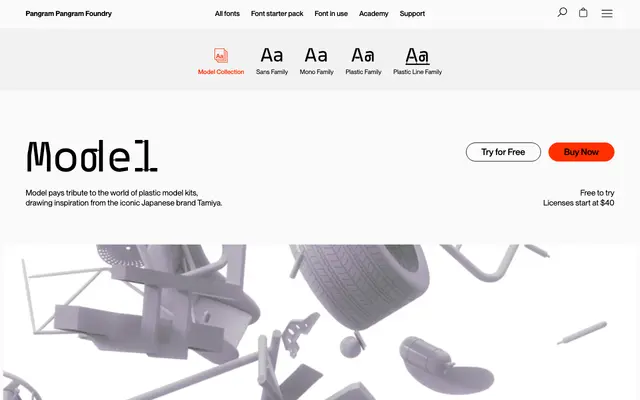
PP Model specimen from Pangram Foundry
A 72-font technical system inspired by Tamiya model kits, with Sans, Mono, Plastic and Plastic Line cuts and Japanese support.
PP Model is a technical sans family inspired by the world of plastic model kits and the precision of Tamiya assembly instructions. Four sub-families run side by side: Model Sans, Model Mono, Model Plastic and Model Plastic Line, each in 18 styles with italics and a variable cut, for 72 fonts in total. The character set covers extended Latin, hiragana, katakana, Japanese punctuation and rarely-included measurement marks, which suits product, industrial and tech-flavoured identity work.
Technical sans inspired by Tamiya plastic model kits, with four sub-families: Model Sans, Model Mono, Model Plastic and Model Plastic Line, each in 18 styles upright and italic with a variable cut. Total of 72 fonts.